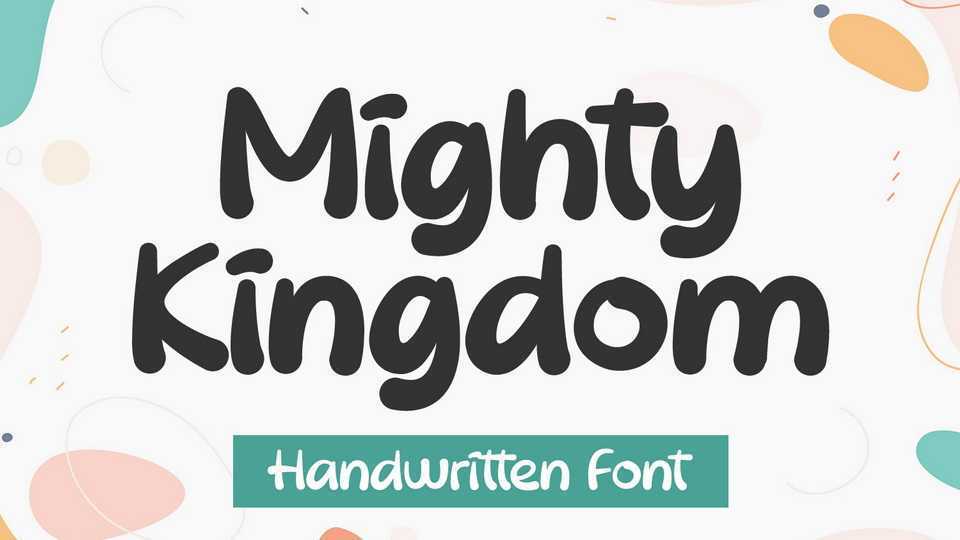
Download Mighty Kingdom font, a lovely handwritten typeface with a cute and playful look. Whimsical and a bit quirky, Mighty Kingdom font will brighten up each of your designs.
Designer: Alpaprana Studio